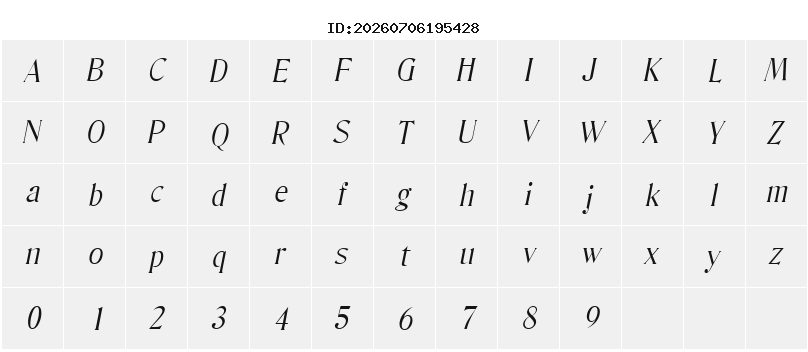
DenverLH Preview
• Font Name: DenverLH
• Font ID: Altsys Fontographer 3.5 DenverLH Italic
• Full Font Name: DenverLH Italic
• Version: Altsys Fontographer 3.5 22.01.1995
• PostScript Name: DenverLH-LightItalic
• Character Count: 205
About DenverLH.ttf
DenverLH.ttf is a modern, elegant sans-serif font designed for ultimate readability and visual harmony. Perfect for branding, headlines, web design, and print materials.